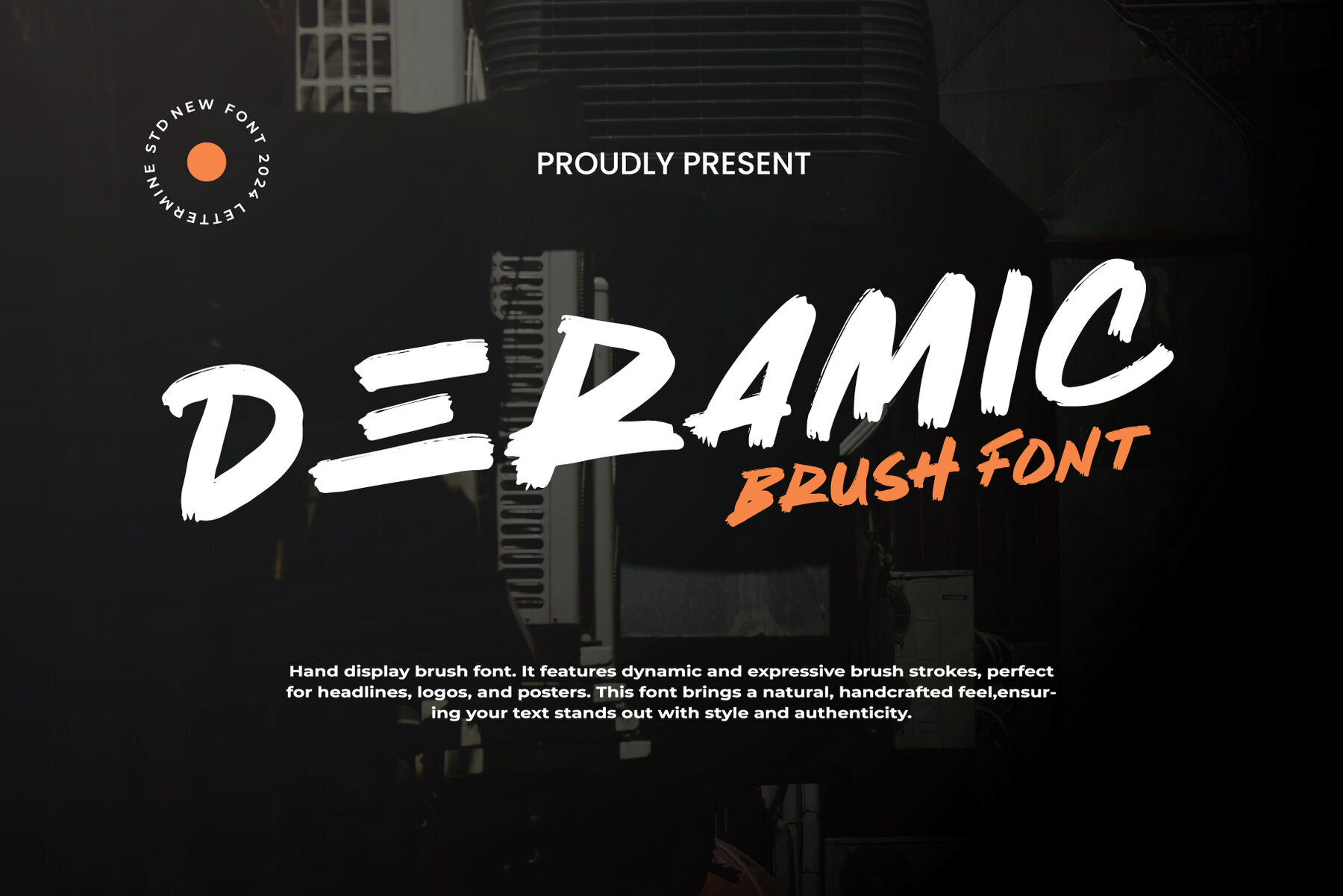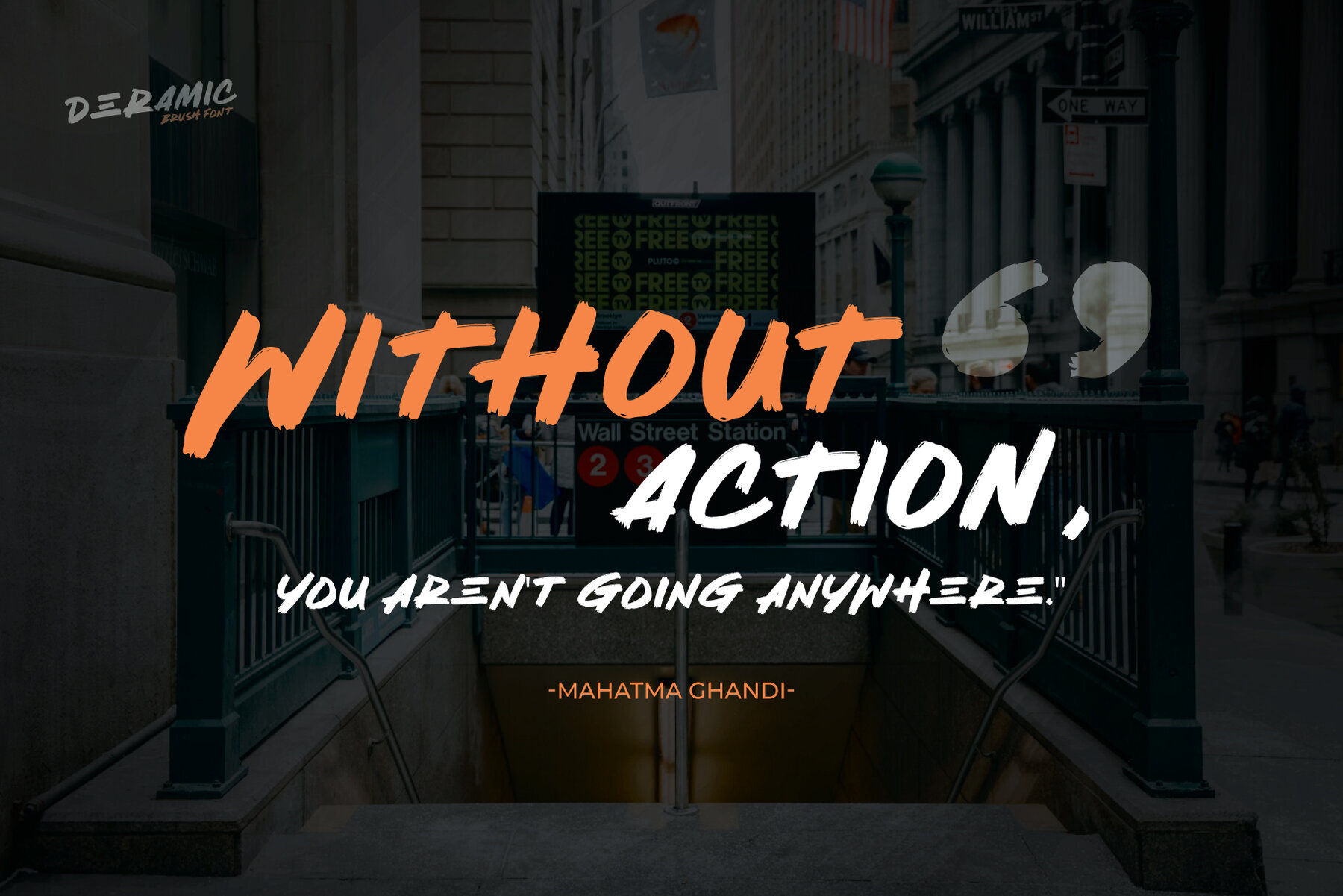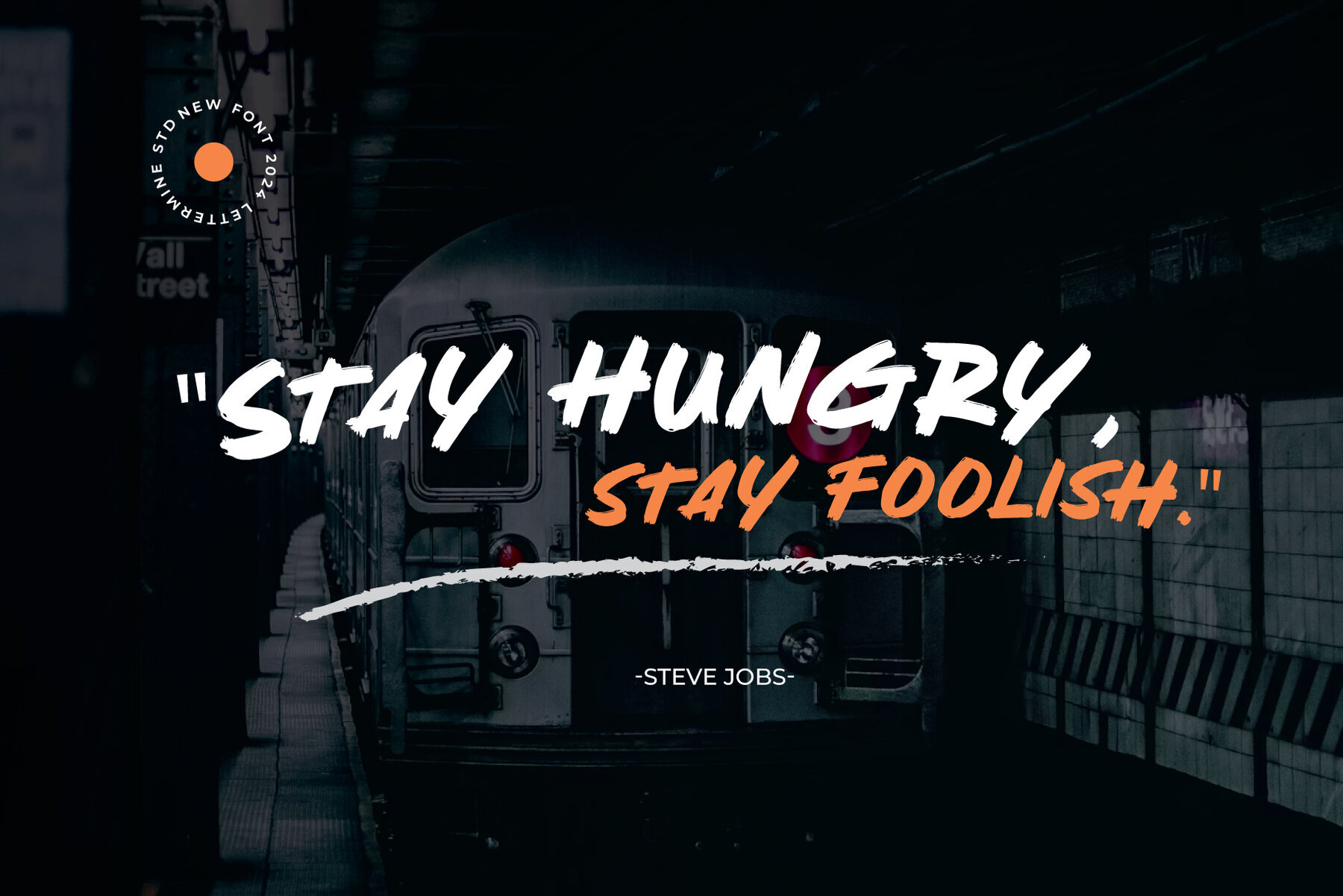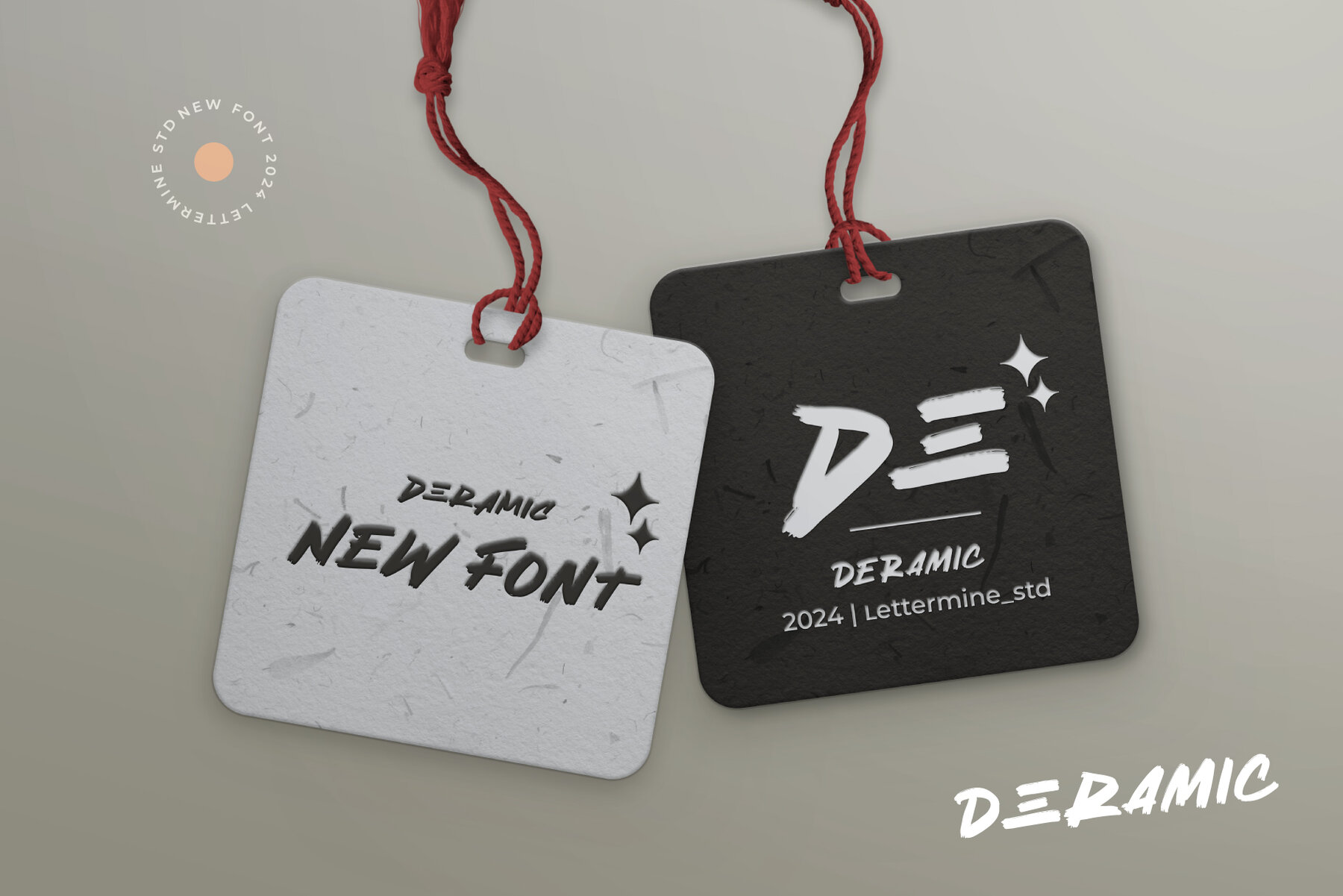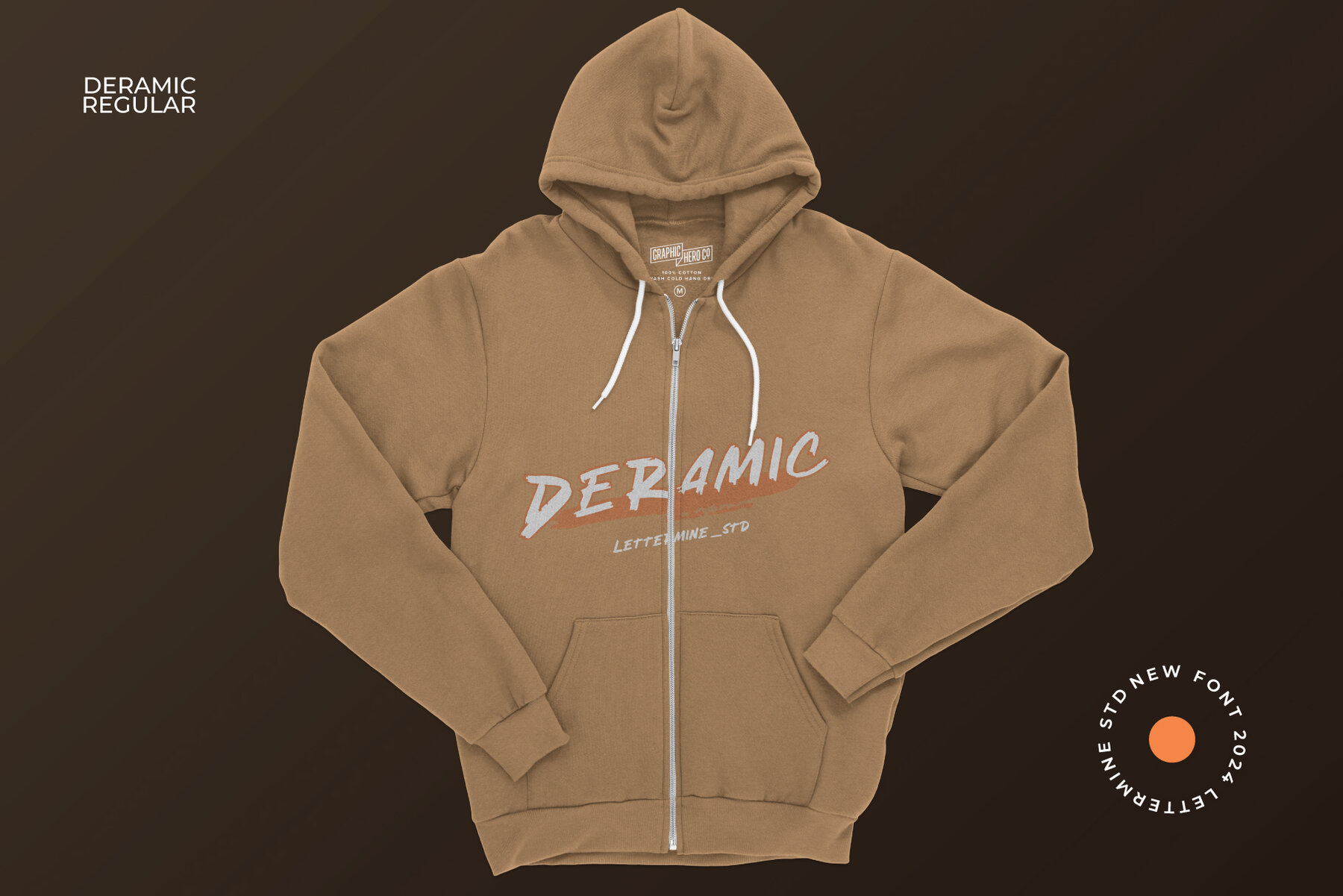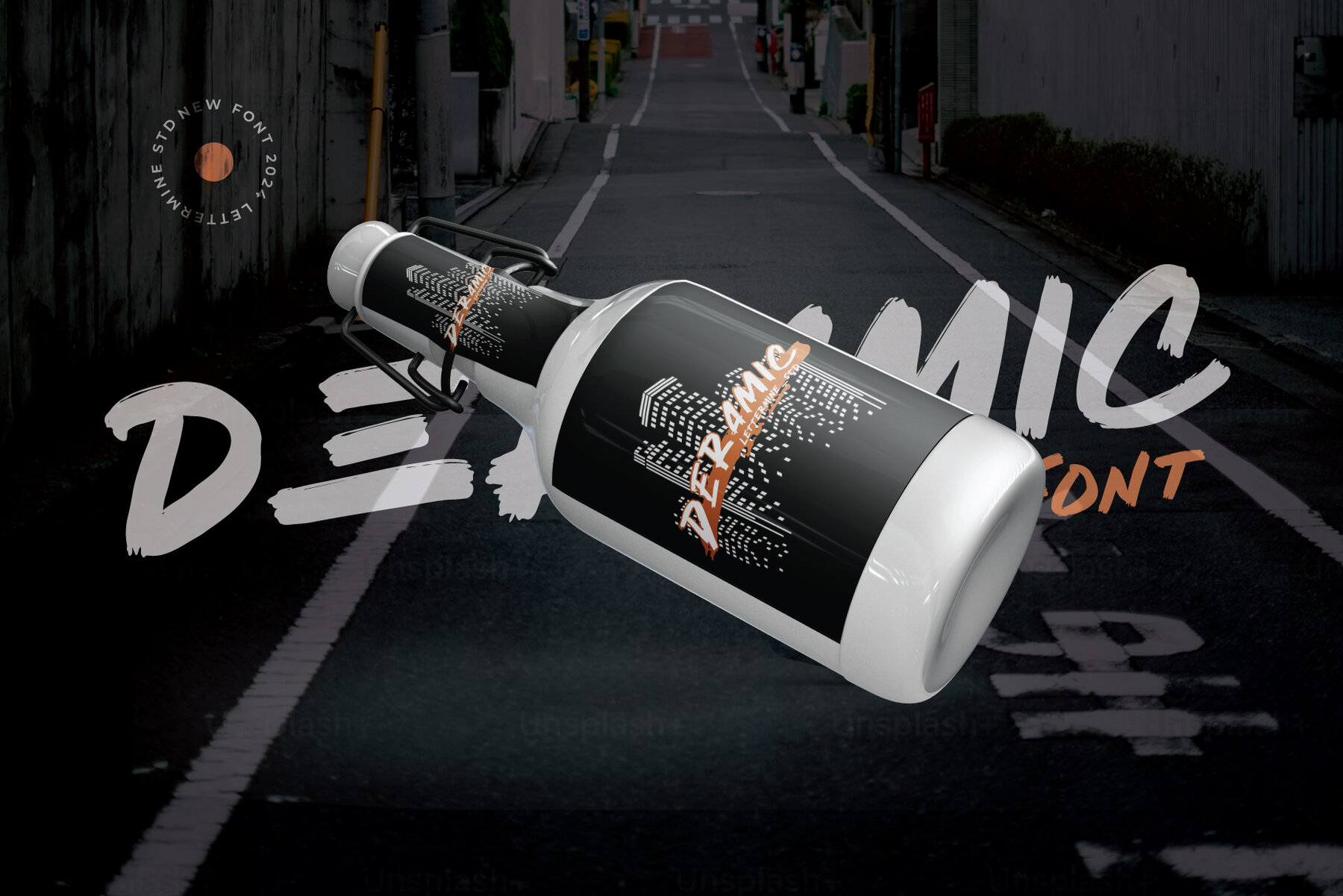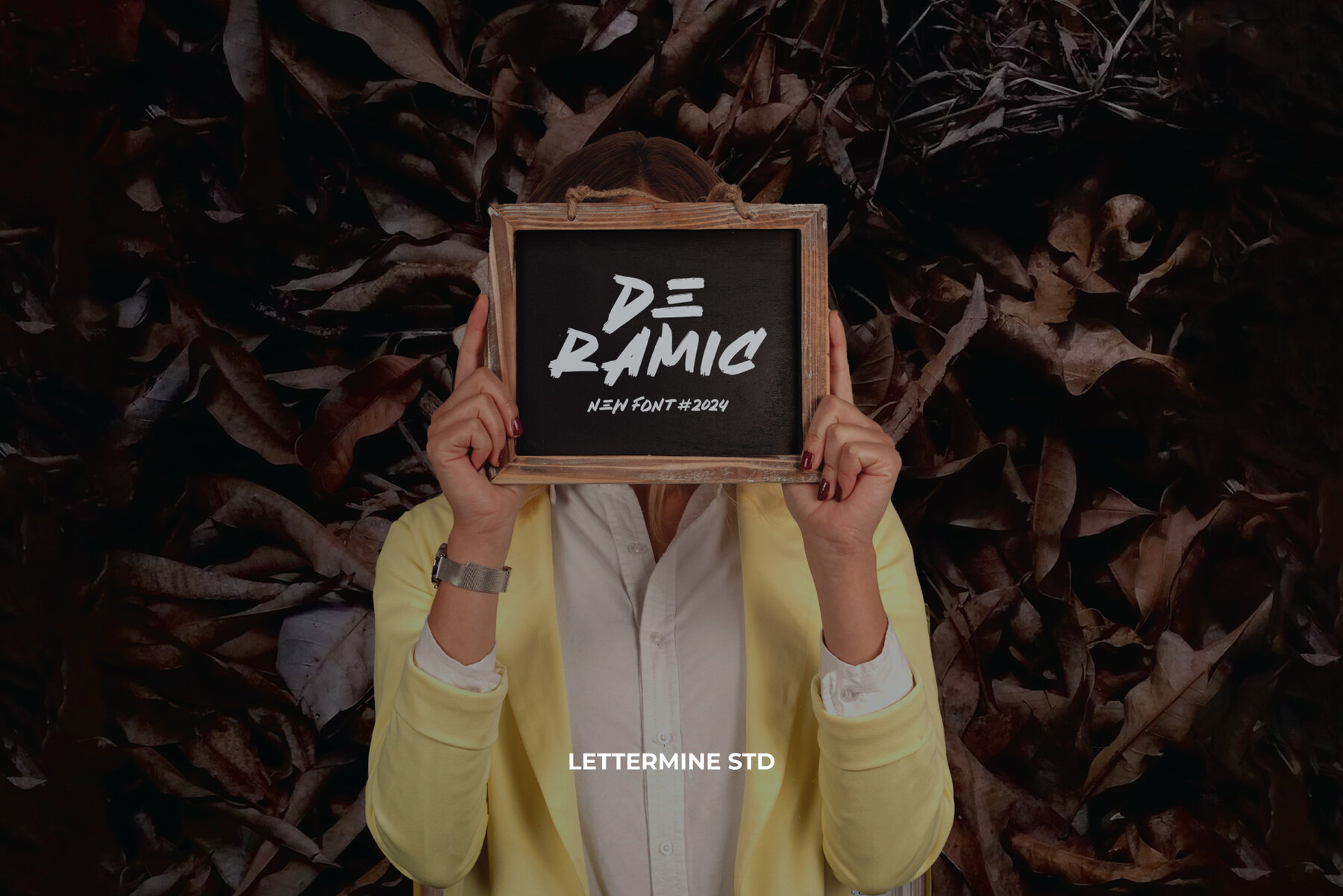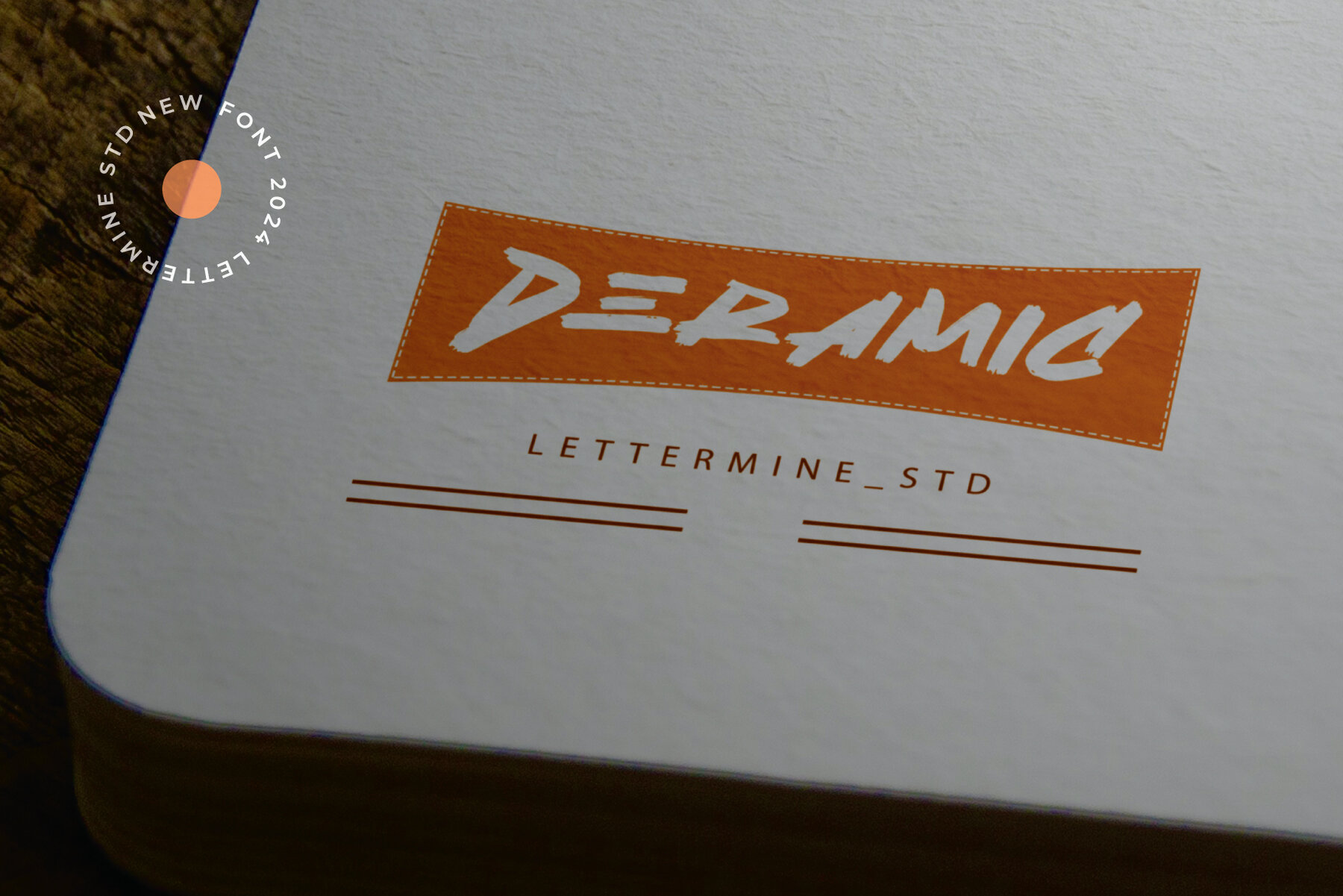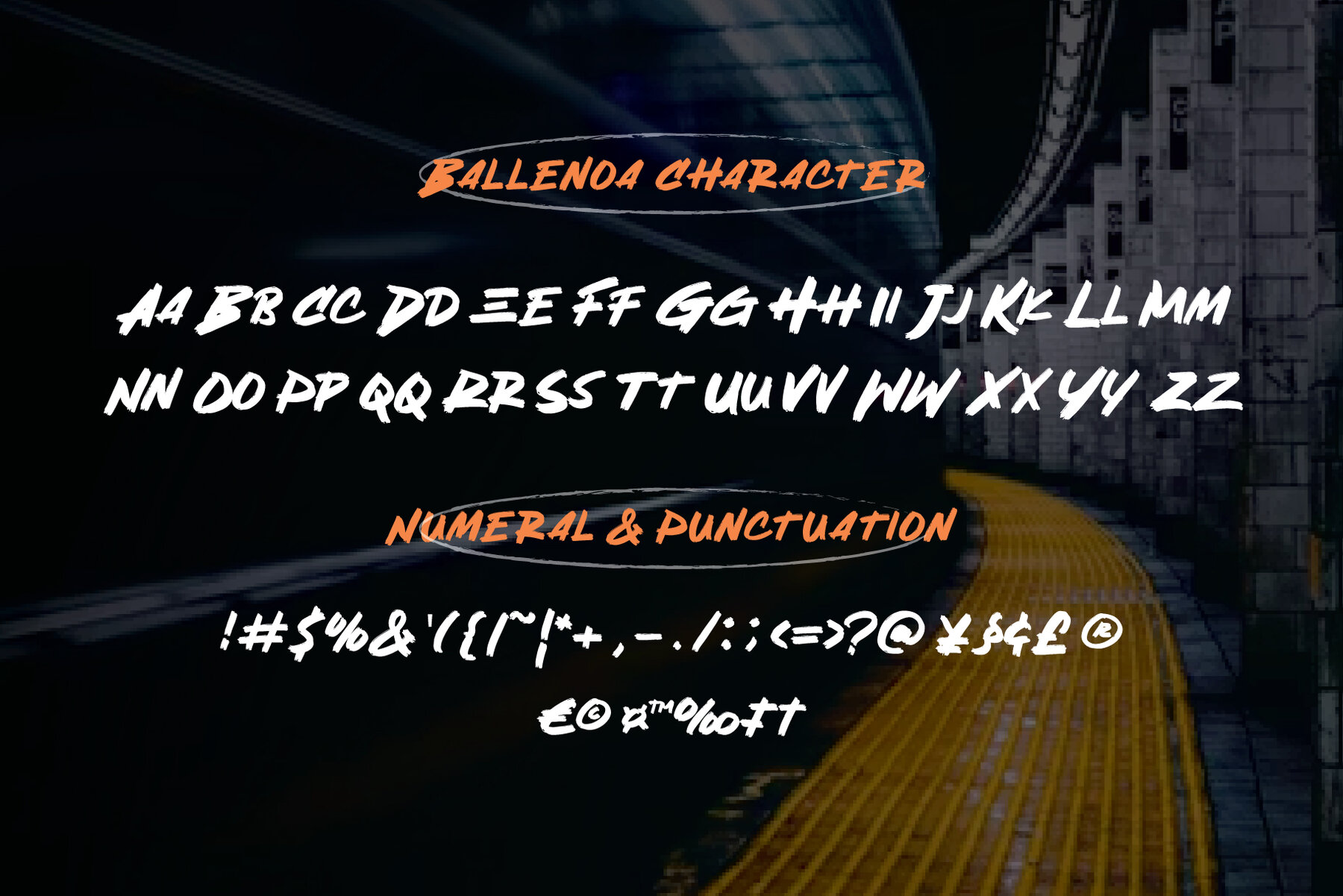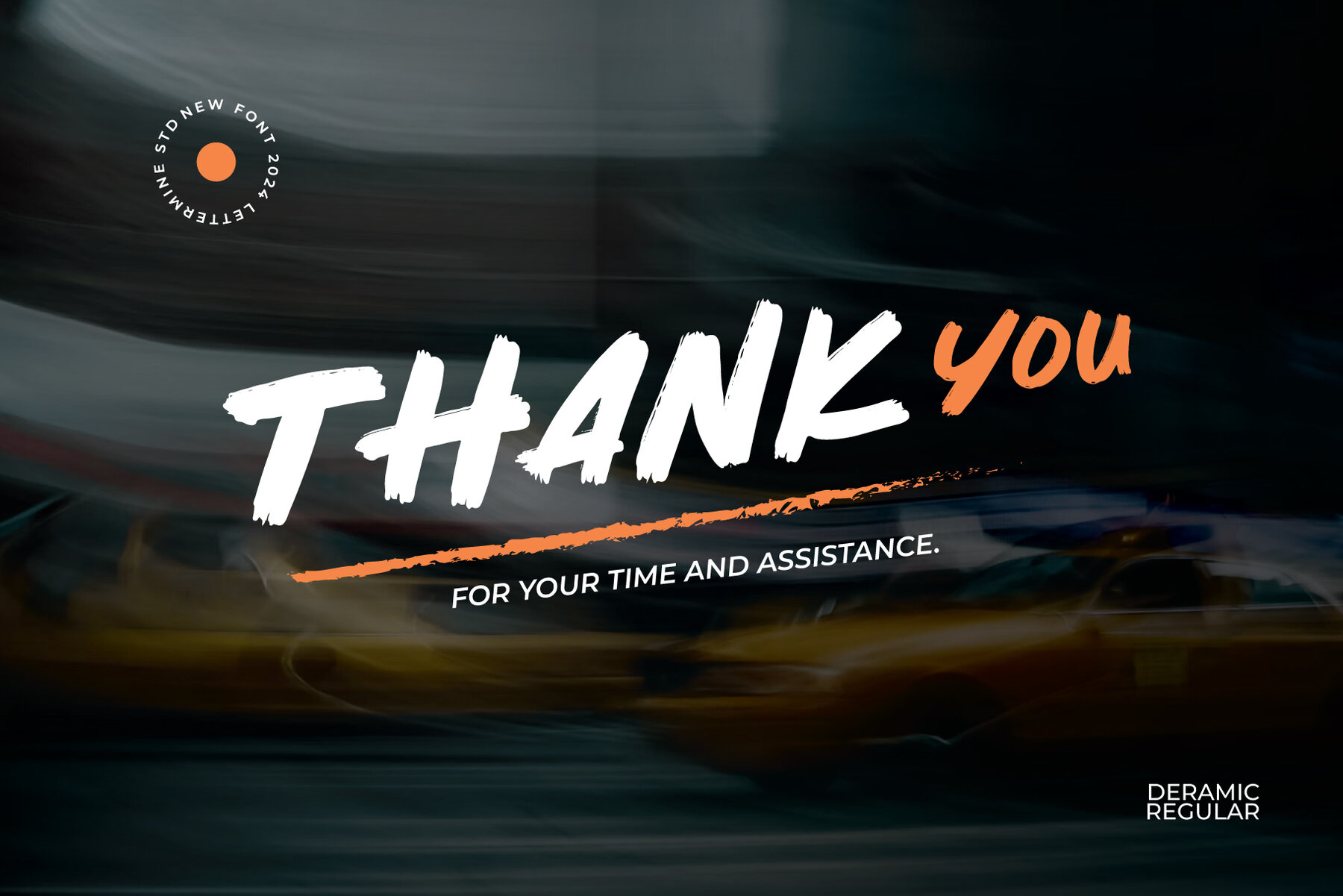
Deramic Font
Discover the elegance of DERAMIC, a stylish script font that adds a sophisticated touch to any project. This versatile typeface features both uppercase and lowercase letters along with full punctuation, making it an excellent choice for various creative applications. Whether you're working on branding and logos, crafting invitations and greeting cards, designing social media posts, or creating eye-catching website headers, DERAMIC delivers a refined and polished look.
Perfect for a multitude of design needs, DERAMIC's graceful curves and expressive strokes can also enhance packaging designs, setting your products apart with a distinctive flair. This script font is not only stylish but also highly functional, providing all the characters you need to achieve a cohesive and elegant presentation. Add a touch of sophistication to your projects with DERAMIC, the ideal script font for any designer seeking to create standout visuals.